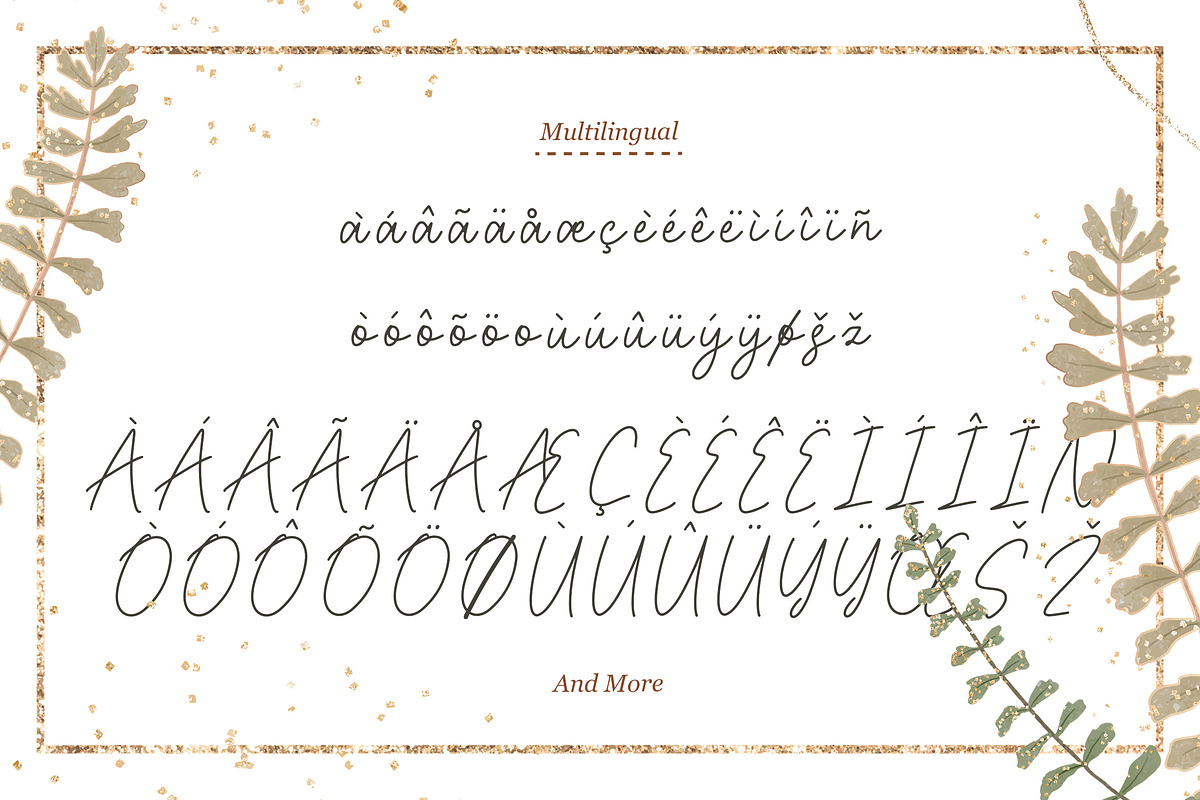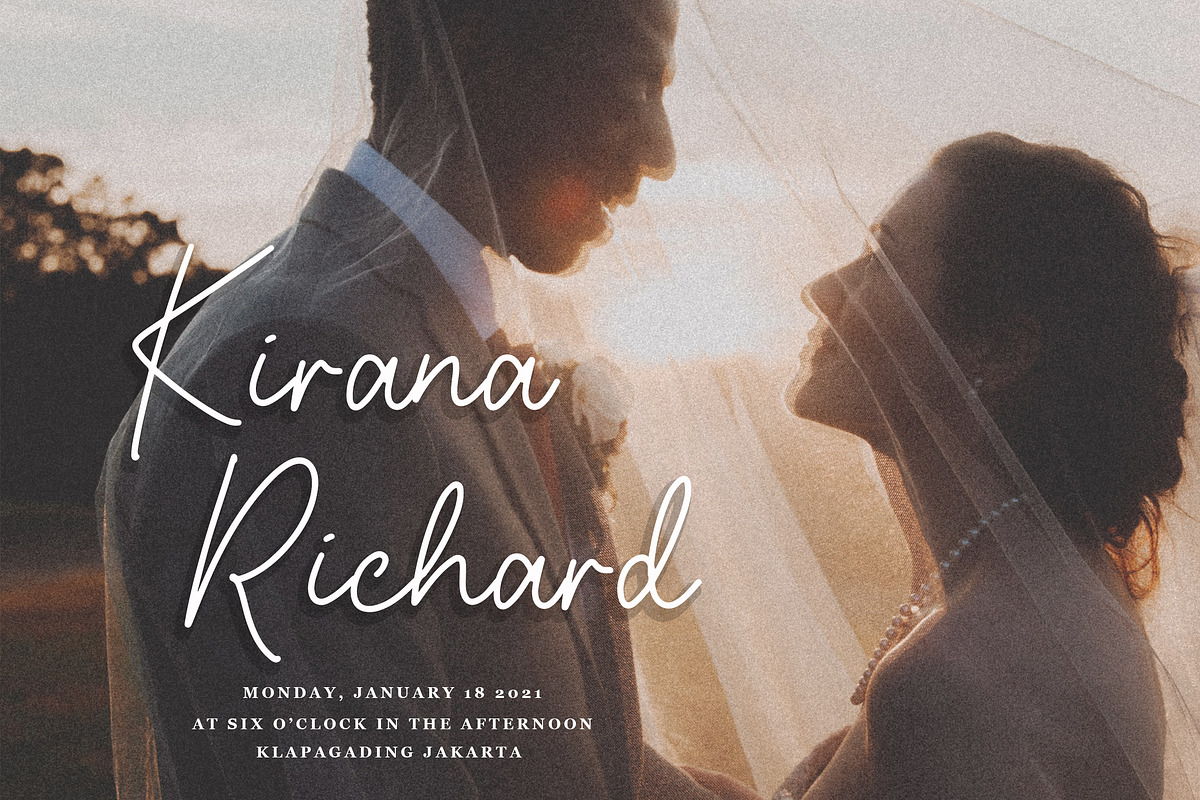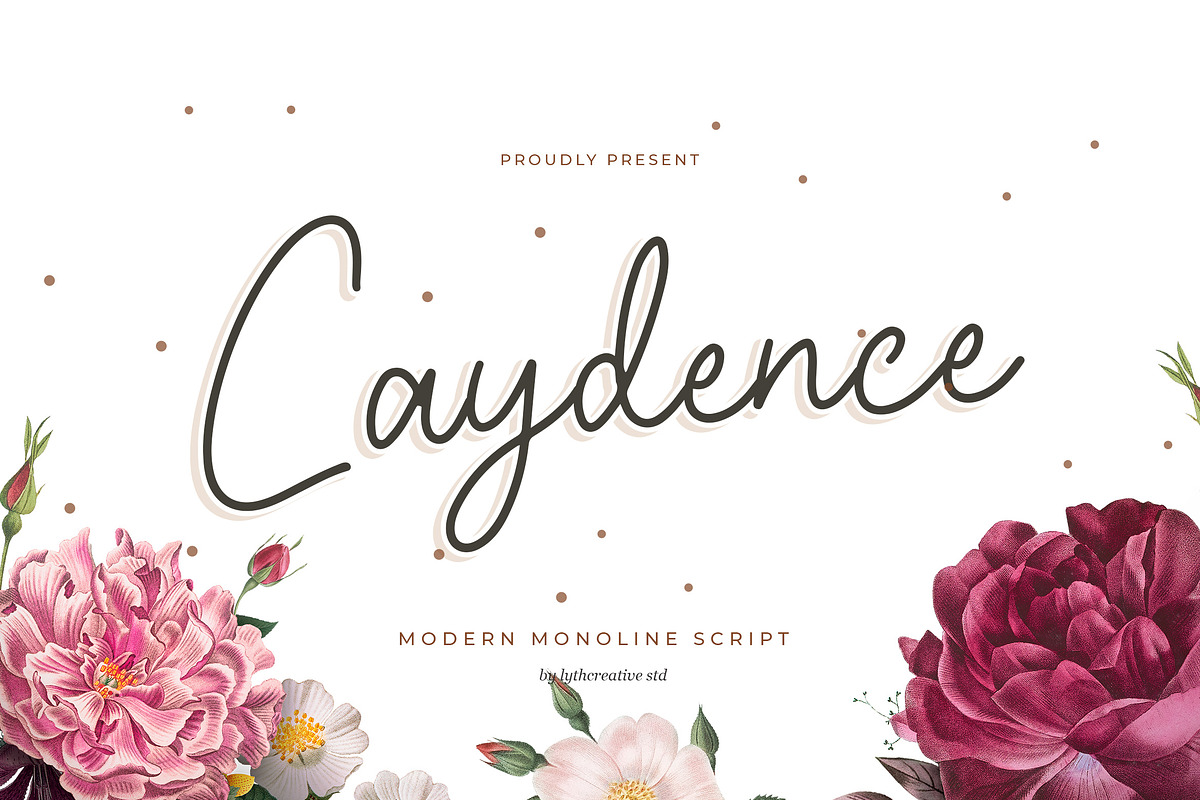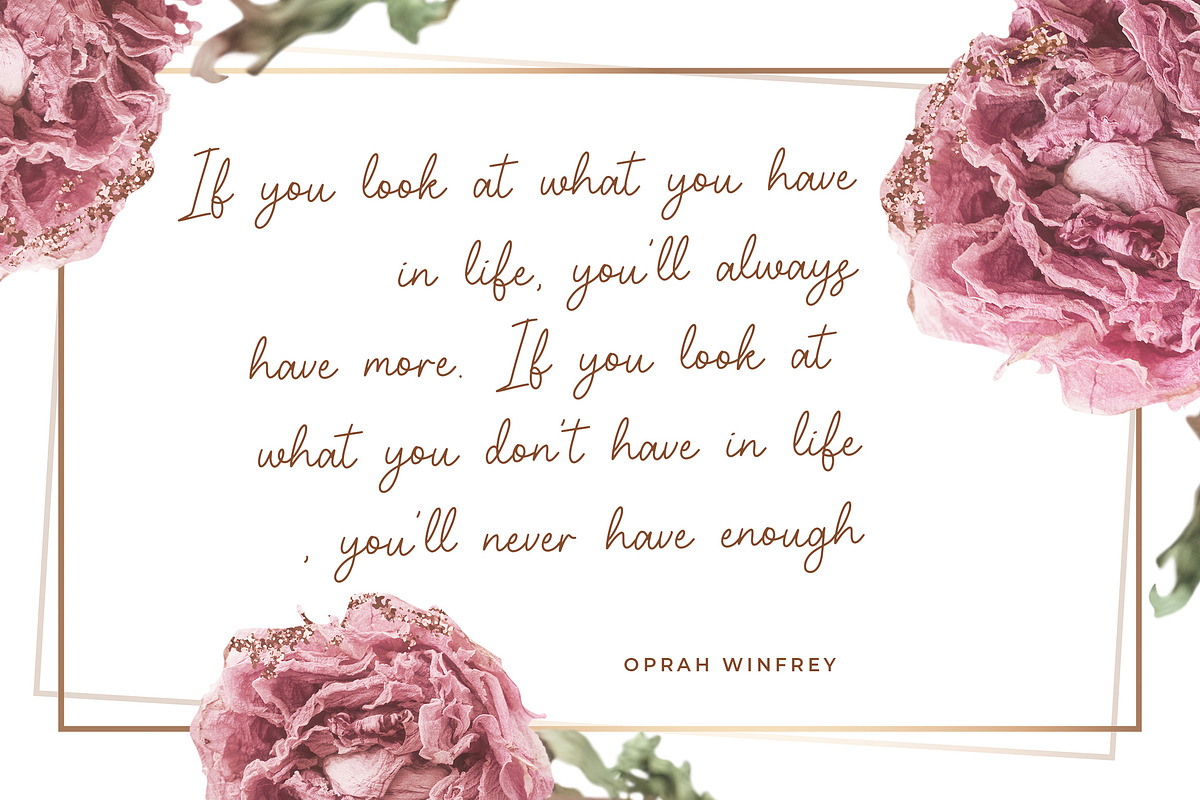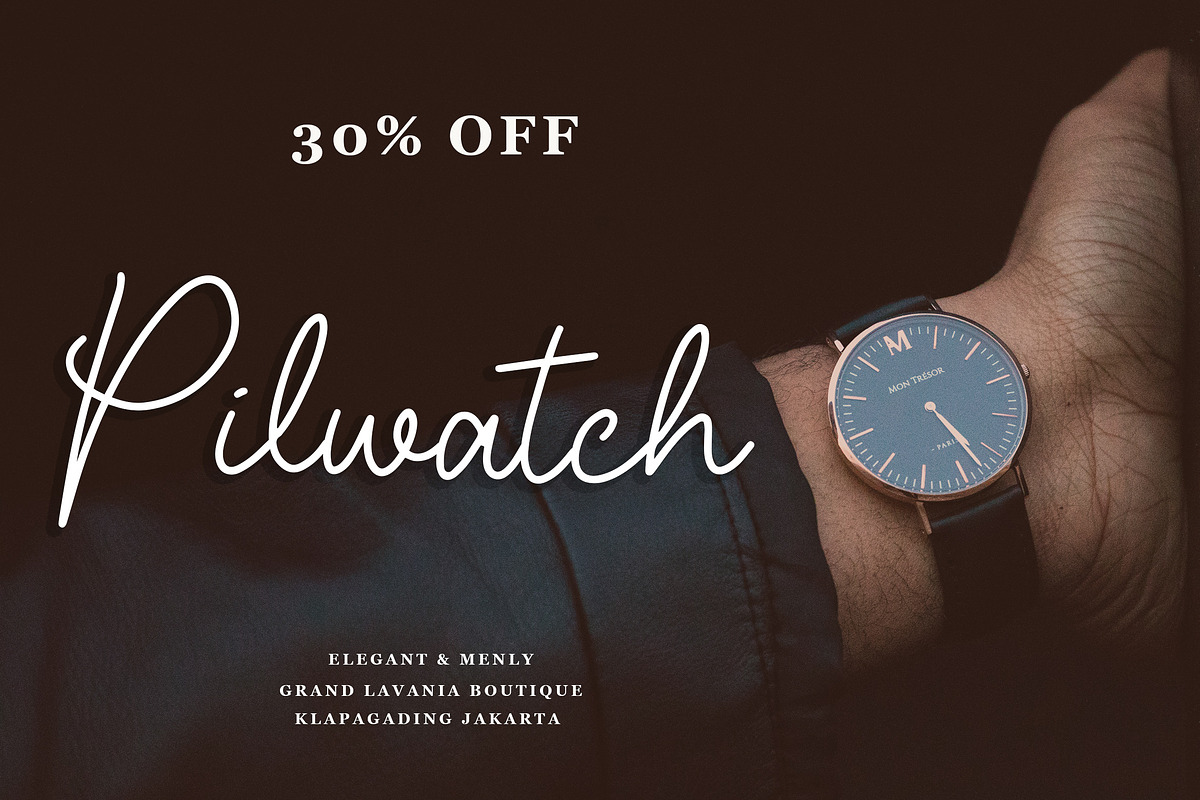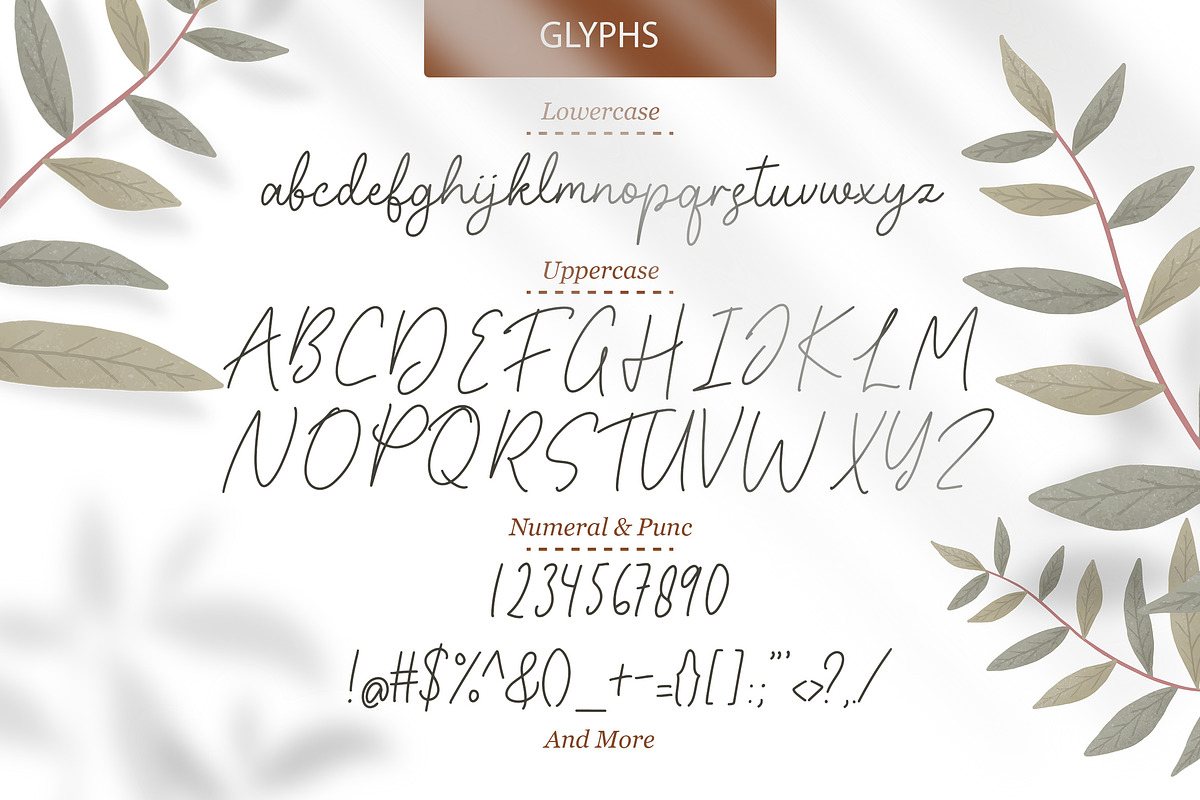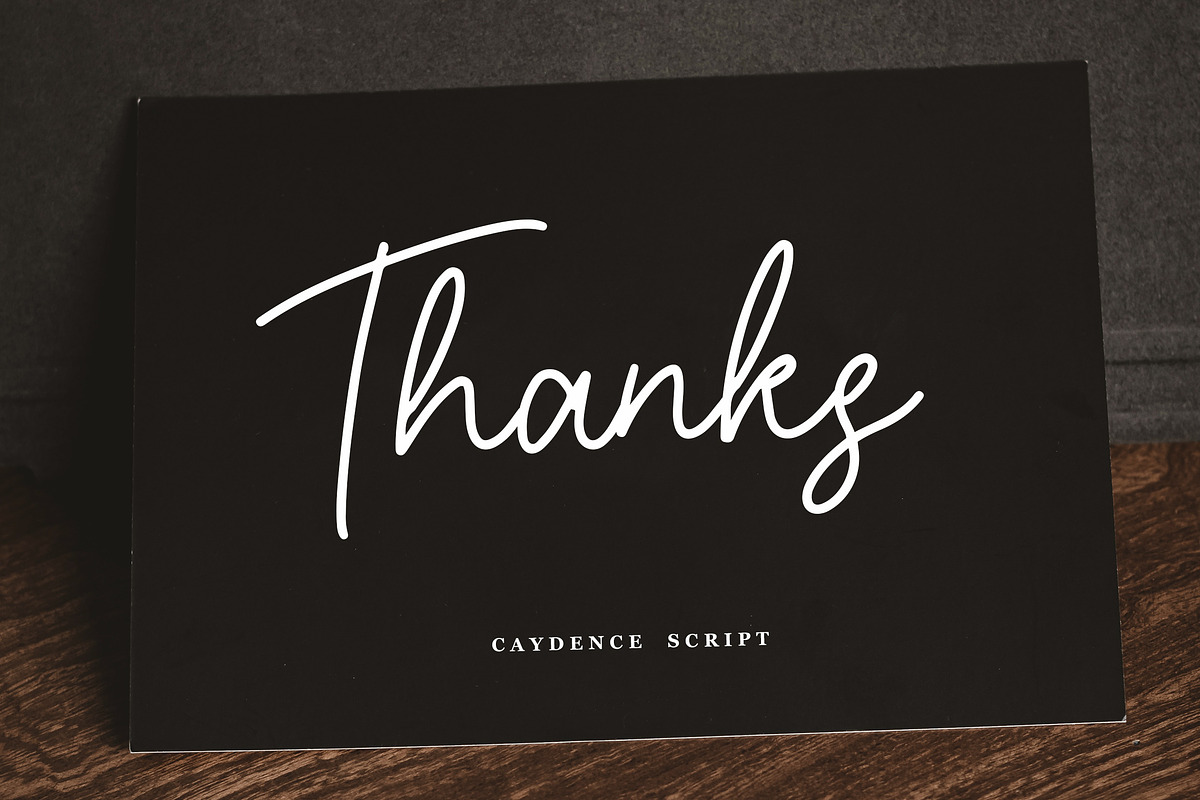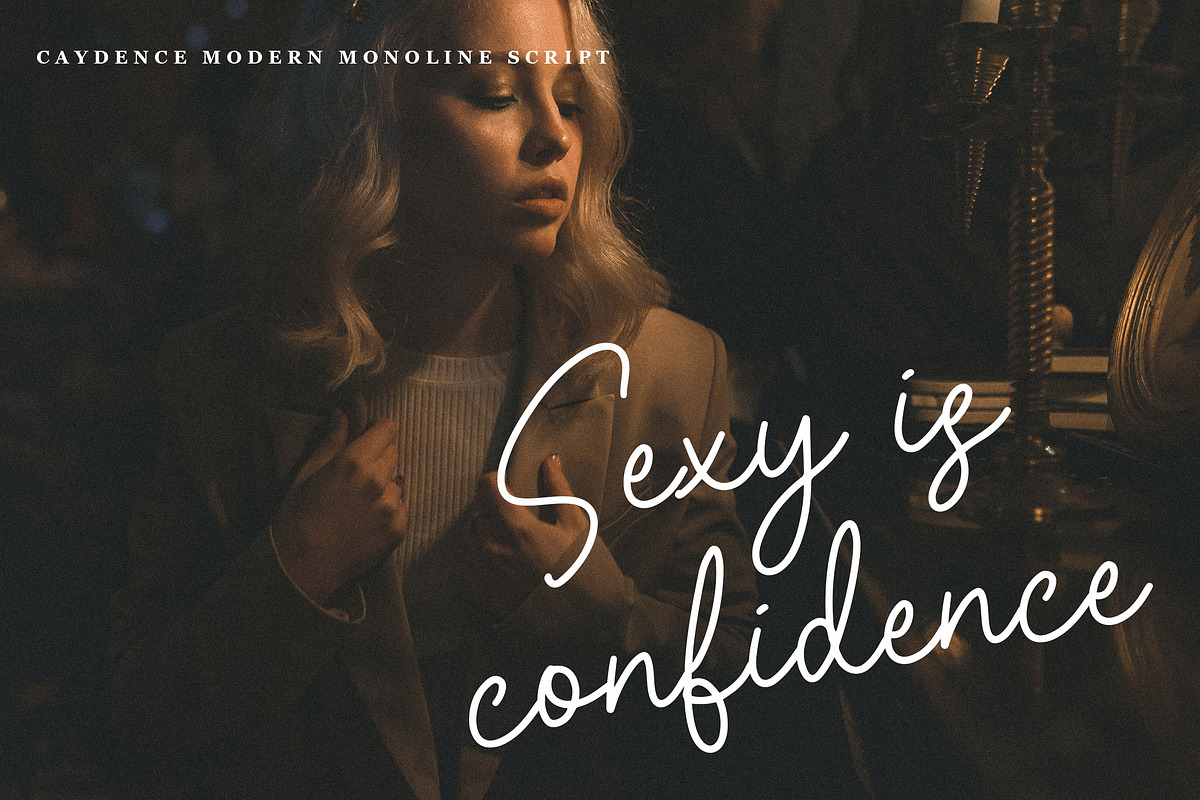
Caydence
Caydence is a modern monoline handwritten font. Its sweet and full of life style makes this font a wonderful choice for brightening up your designs. Add it confidently to your projects such as watermark on photography, signature or signature logo design, quotes, album cover, business card, and many other design project.